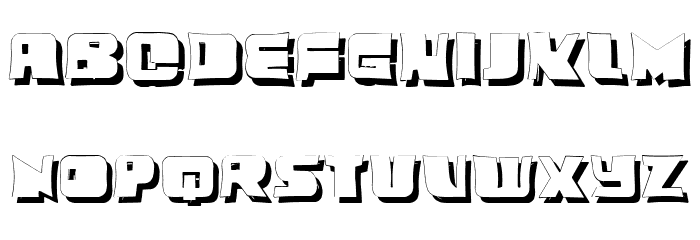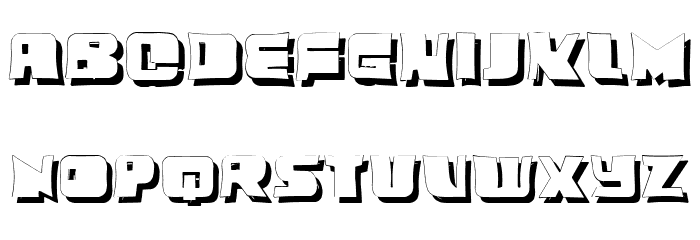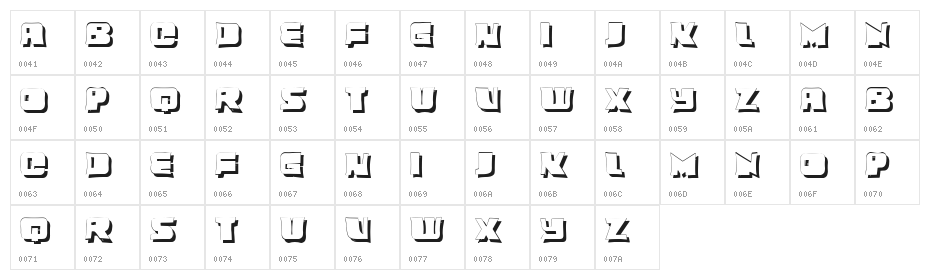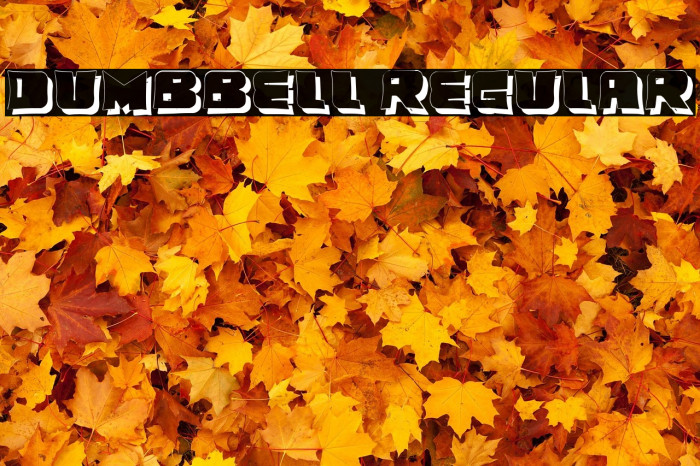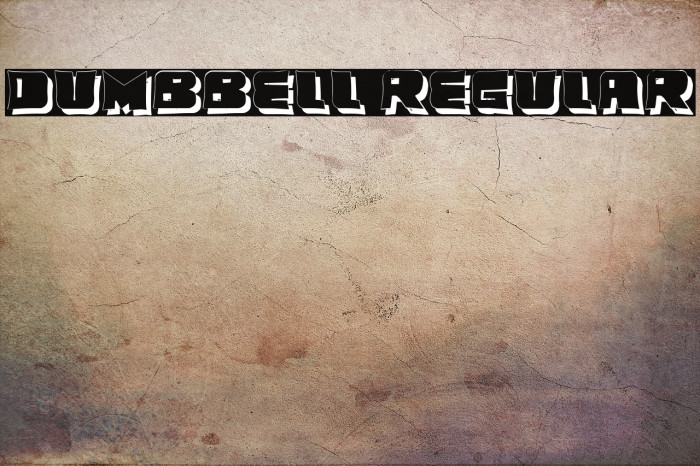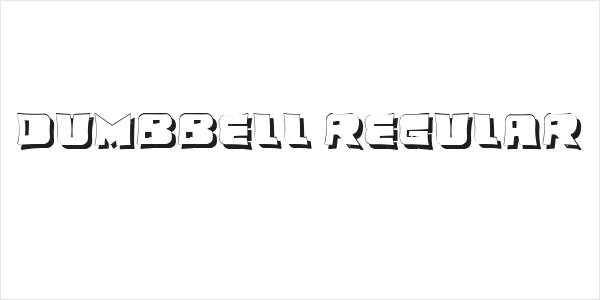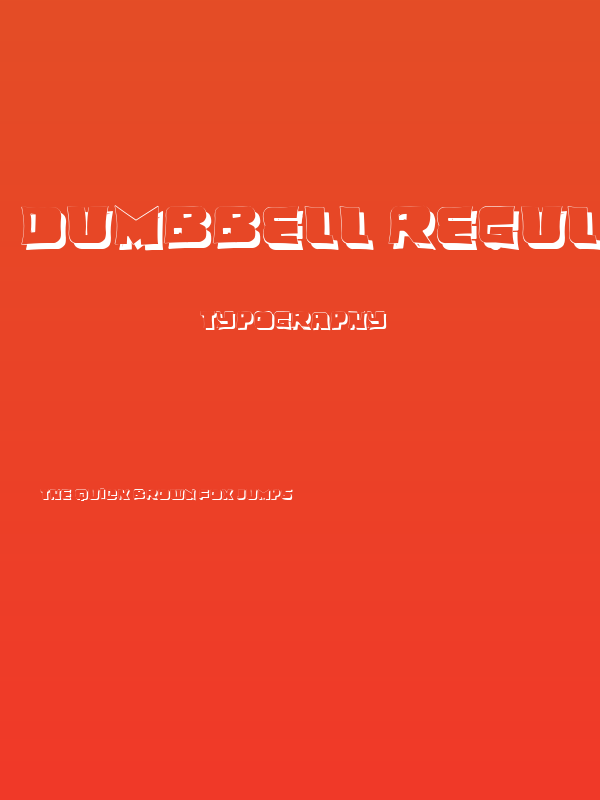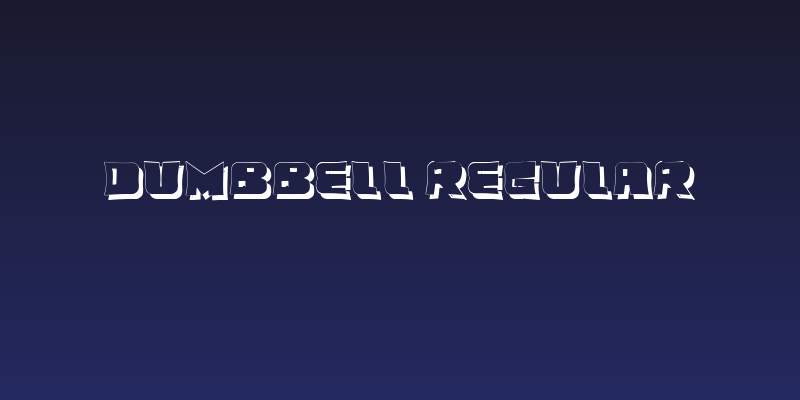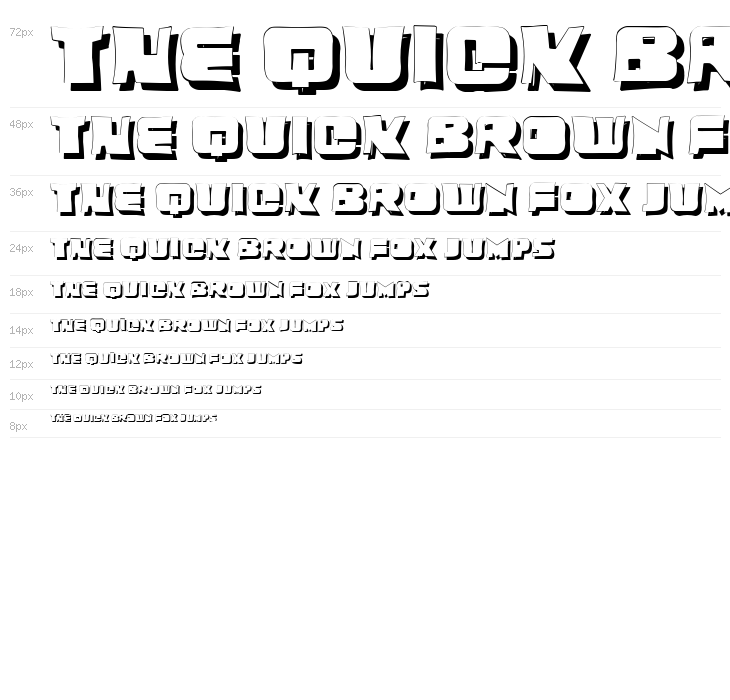
Dumbbell Regular Font
This font features a bold, three-dimensional design with a strong, impactful presence. Each character is crafted with a shadow effect that gives the illusion of depth, making it stand out prominently. The letters are blocky and geometric, with sharp angles and clean lines, creating a modern and dynamic appearance. The uppercase letters are consistent in height, while the overall style is reminiscent of industrial or sports-themed designs. This font is ideal for projects that require a bold statement, such as posters, headlines, or branding materials.
A bold, three-dimensional font with a strong, impactful presence and shadow effect.
- Proposed Projects: Ideal for sports branding, posters, headlines, and any design needing a bold statement.